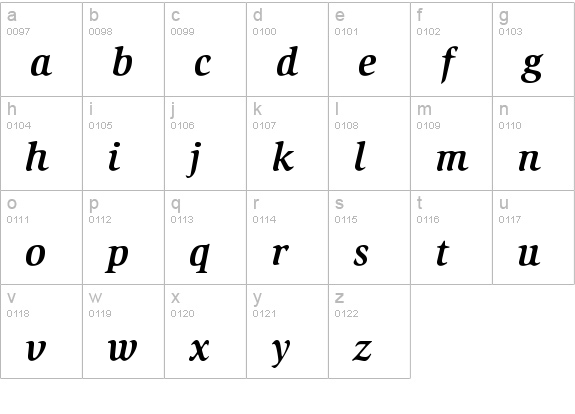
AT Slimbach Bold Italic Font Details
AT Slimbach Bold Italic is a strong, high-contrast, italic variant in the AT typeface family \xE2\x80\x94 well suited to headlines, attention-grabbing titles, and strong calls-to-action.
The AT Slimbach Bold Italic font exudes a sense of bold sophistication and elegance with its sleek and modern design. Its strong, slanted letterforms make a striking statement, perfect for adding a touch of flair to any project. The bold weight commands attention while the italic style adds a touch of dynamism and movement. Best of all, the AT Slimbach Bold Italic font is available for free download at FontsMarket.com. This means you can easily enhance your designs with this stylish and versatile typeface without any cost. Whether you're working on a branding project, editorial design, or any other creative endeavor, this font is sure to elevate your work with its unique blend of strength and grace. Download it today and start creating stunning visuals that stand out from the crowd.